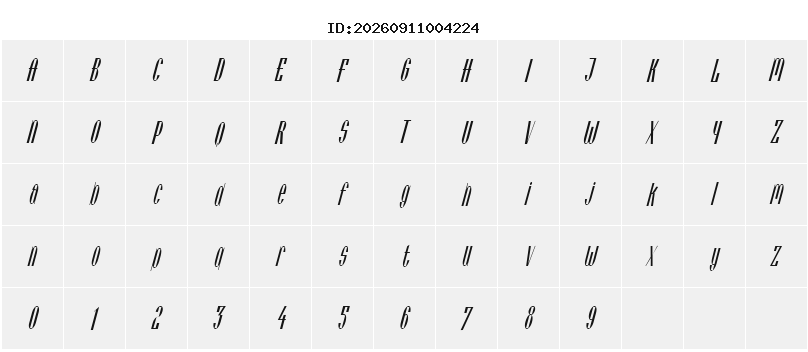
Vienese Preview
• Font Name: Vienese
• Font ID: SWFTE:Vienese Italic
• Full Font Name: Vienese Italic
• Version: Rev 001.000
• PostScript Name: VieneseItalicSWFTE
• Character Count: 231
About Vienese.ttf
Vienese.ttf is a modern, elegant sans-serif font designed for ultimate readability and visual harmony. Perfect for branding, headlines, web design, and print materials.